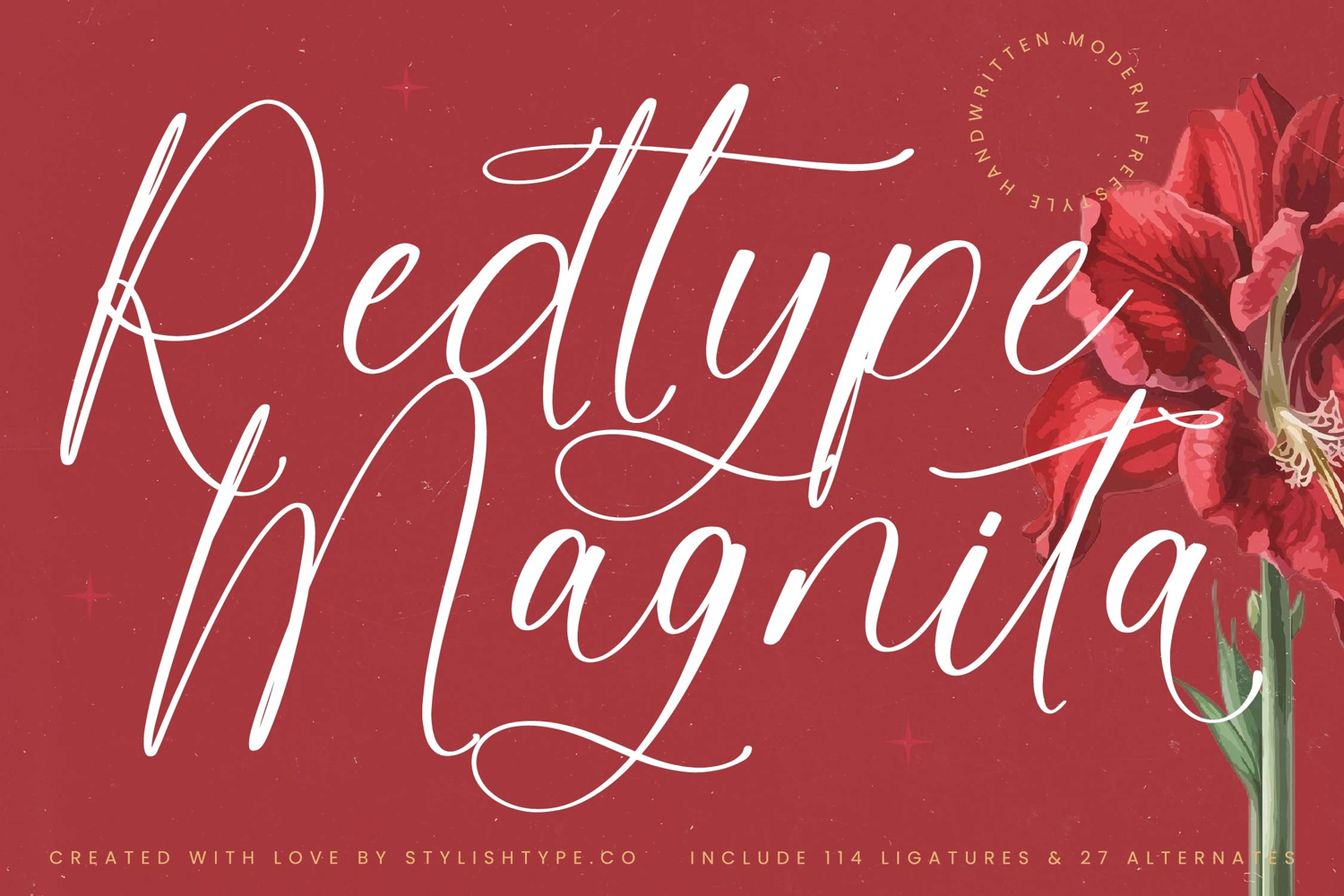
Redtype Magnita - Modern Freestyle Handwritten
Redtype Magnita is more than just a decorative typeface; it is a storytelling tool. It gives your designs a signature look that feels exclusive and timeless, ensuring your projects stand out with personality and elegance. Whether you are creating a boutique logo, a romantic event poster, or a creative advertising campaign, this font enhances your work with a touch of artistry and refinement.